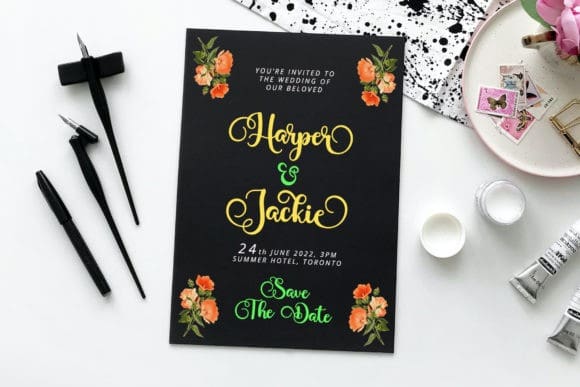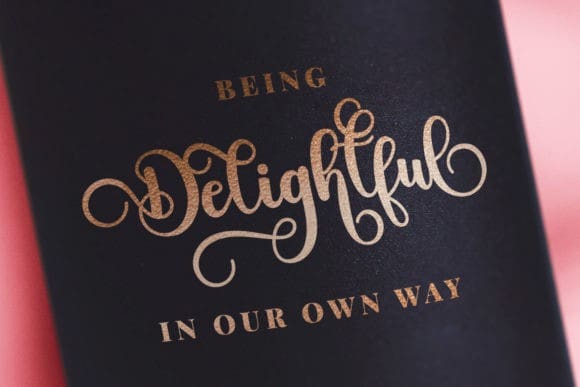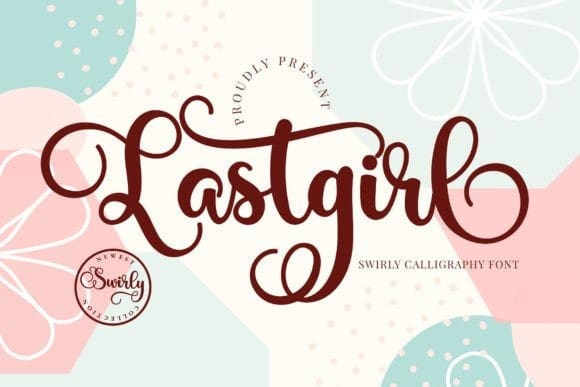
Lastgirl Font
Lastgirl Font is a delicate, refined script font that emanates sophistication and elegance. Its stylish alternates and ligatures make this font the perfect match for any project.Lastgirl is PUA encoded which means you can access all of the glyphs and swashes with ease!